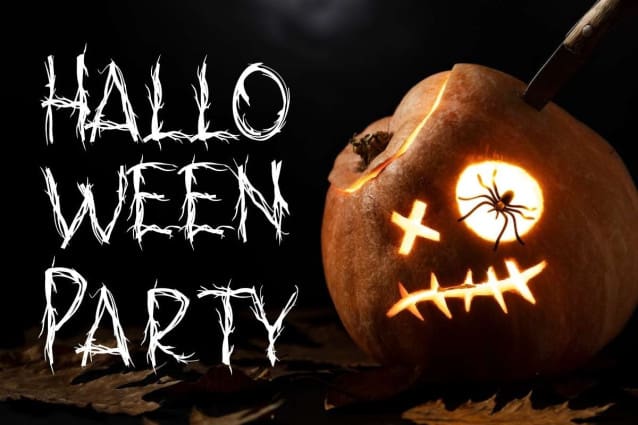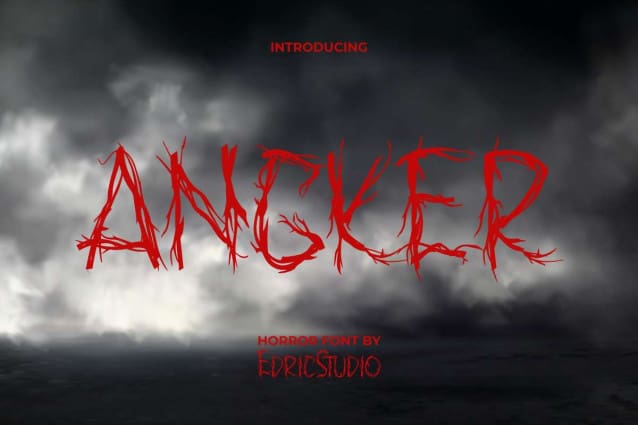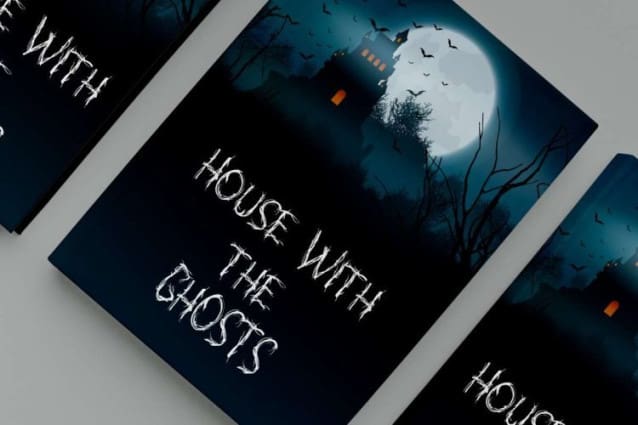
Angker Horror Font
Angker Horror Font is a horror display font inspired by scary stories created by EdricStudio. This font feels very gripping, there are old root fibers that bind together and form a part of the letter that is suitable for any industry, such as accessories, band, café, clothing brand, craft, fashion, game, halloween party, homeware, movie, music, photography, printing, publishing, and many more.
Angker Horror Font  comes with full set of ALL CAPS for both Uppercase and Lowercase characters with different size, Number, a large range of Punctuation and Symbol. It has a stunning characters set, perfectly managed with well spaced and kerning. Angker Font also comes with additional alternative characters, will be able to complement for any project (with extended license) including: billboard, brand logo, brochure, business card, header, label, tote bag, poster, packaging design, screen print, stationary, sticker, website, etc.